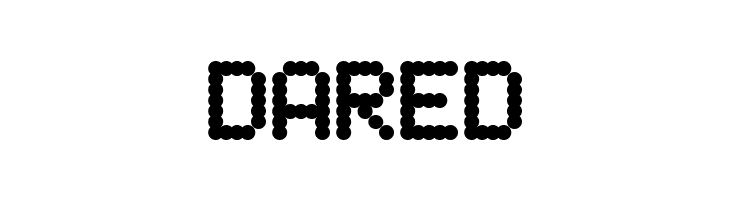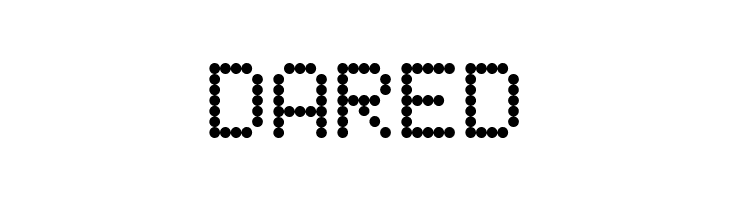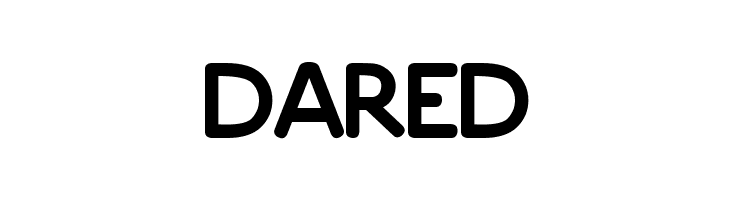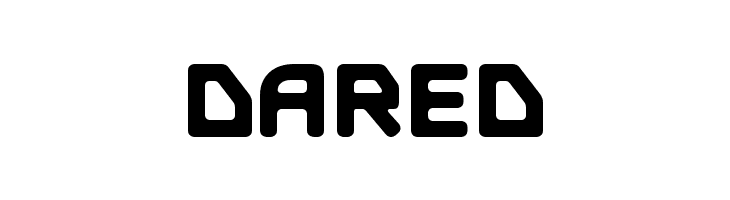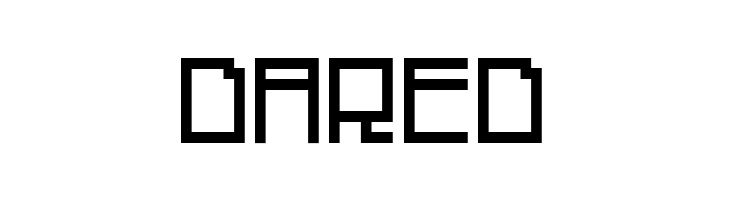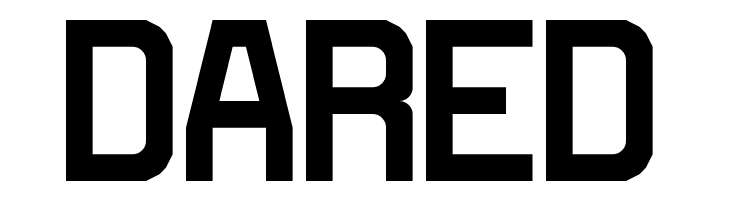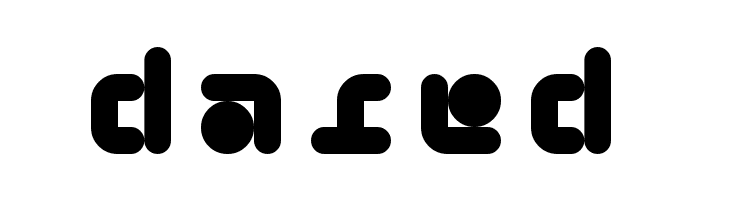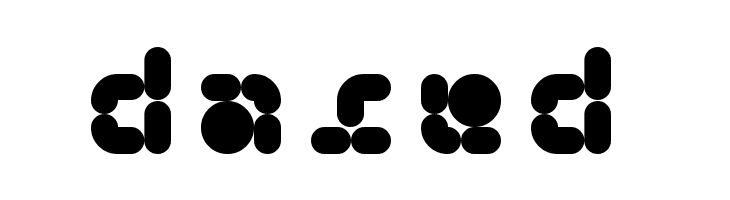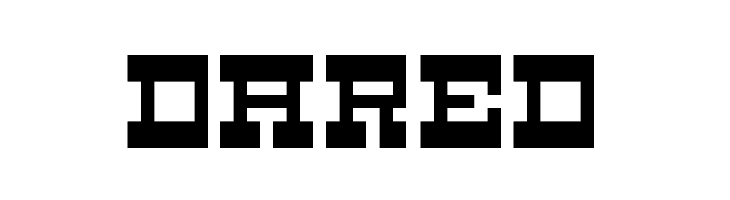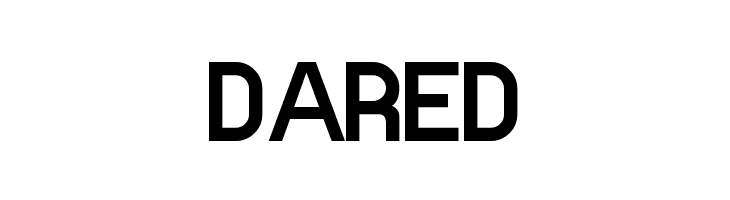
A bold, modern sans-serif font with clean, geometric lines.
A playful, bean-shaped decorative font with tight spacing and uniform thickness.
A playful, bold font with rounded, geometric shapes and consistent thickness.
A dot-based, pixelated font with a retro digital style.
A bold, dot matrix style font with a retro digital appearance.
A bold, geometric font with a pixelated, retro digital aesthetic.
A modern, monospaced font with clean lines and uniform spacing.